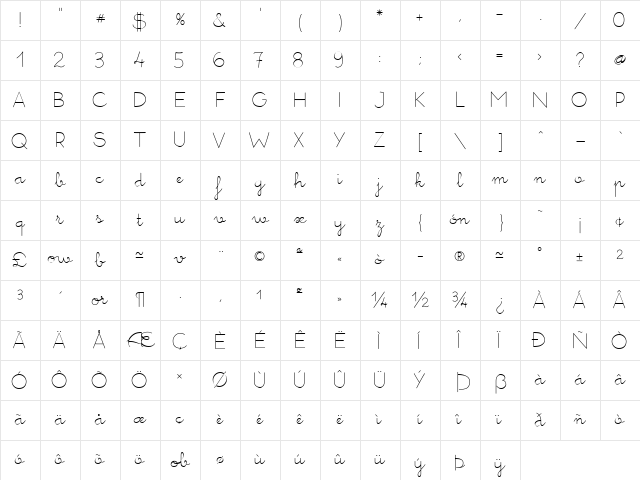
Memimas Regular Free Font
Memimas Regular
Complete Memimas Regular glyph index. Displaying only characters natively supported by Memimas Regular font.
Design Context for Memimas
Memimas is a composed and adaptable typeface that performs quietly and consistently across a wide range of design contexts.